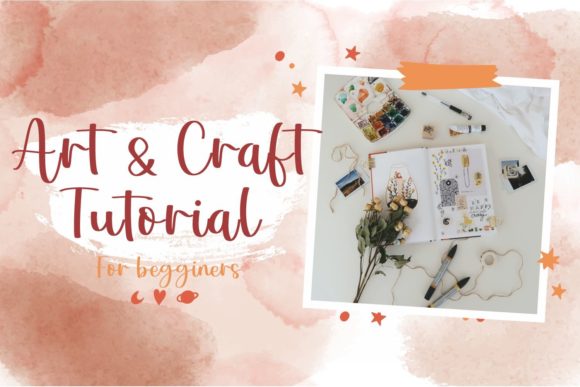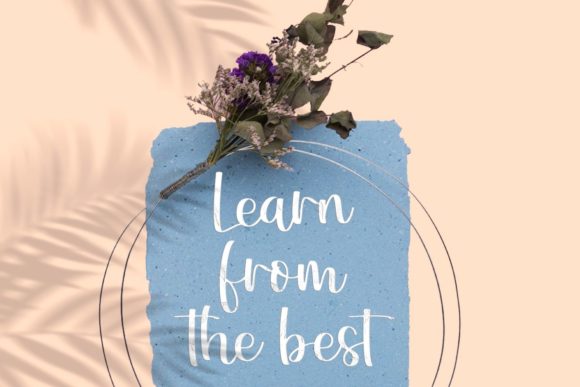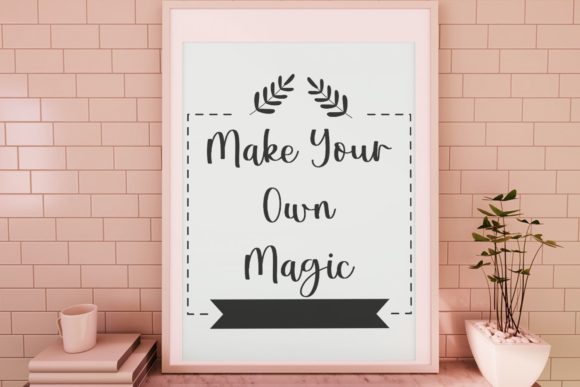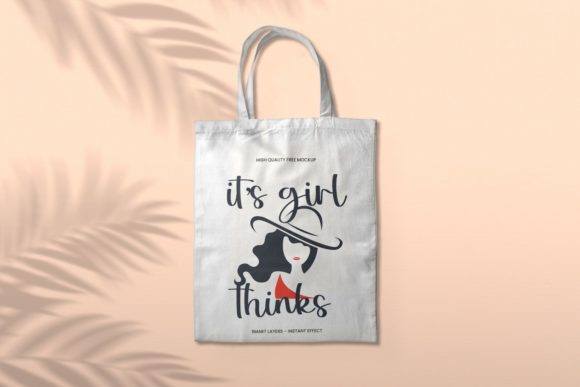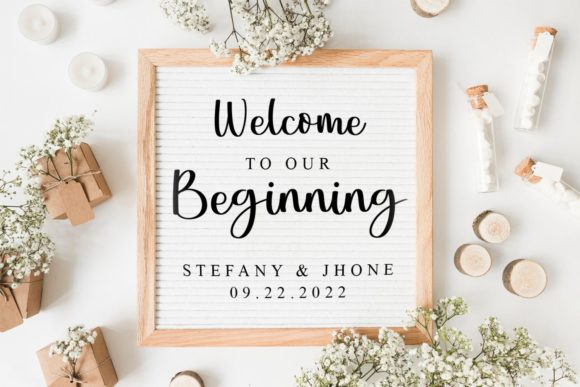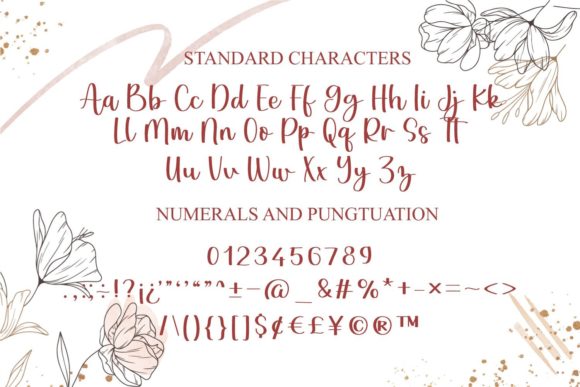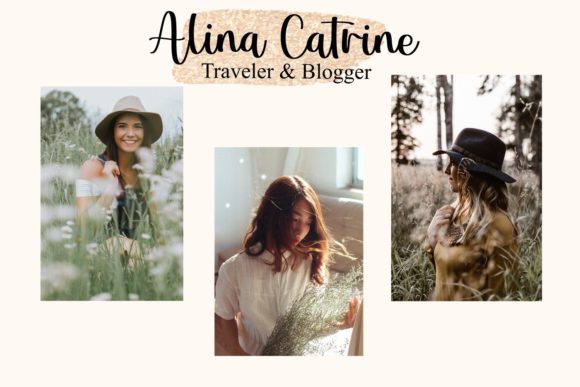
Amstrong Font
Amstrong is a flowing and delicate script font that is meticulously crafted with intricate details. With its graceful curves and smooth lines, this font is a wonderful asset to your font library, capable of enhancing any creation, regardless of the topic.
The flowing nature of Amstrong adds an elegant touch to your designs. Each letter is carefully designed to maintain a harmonious balance, creating a visually pleasing aesthetic. Whether you’re working on invitations, logos, branding materials, or any other project, Amstrong brings a sense of sophistication and refinement.
The highly detailed craftsmanship of Amstrong is evident in every stroke. Its intricate design elements make it stand out, adding a touch of uniqueness to your typographic compositions. The attention to detail in this font showcases its quality and makes it a valuable addition to your creative toolkit.
Amstrong is versatile and adaptable, able to complement various design styles and themes. Whether your project is elegant and luxurious, or whimsical and playful, this font effortlessly enhances the overall visual impact. Its timeless appeal makes it suitable for a wide range of applications.
In summary, Amstrong is a flowing and delicate script font with meticulous craftsmanship and intricate details. Its ability to enhance any creation, regardless of the topic, makes it a valuable asset for designers. Embrace the beauty of Amstrong and let it elevate your designs with its flowing elegance and attention to detail.